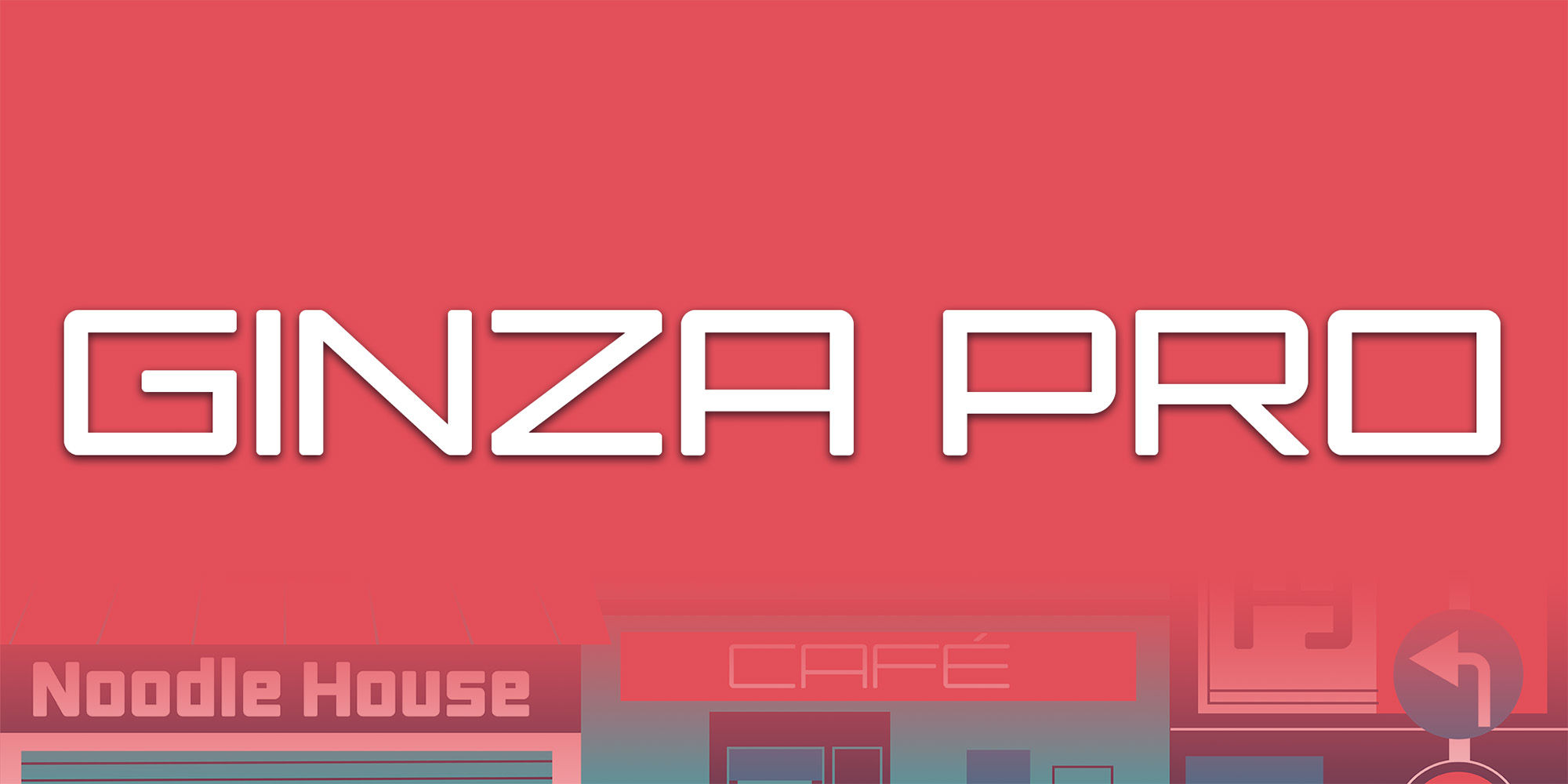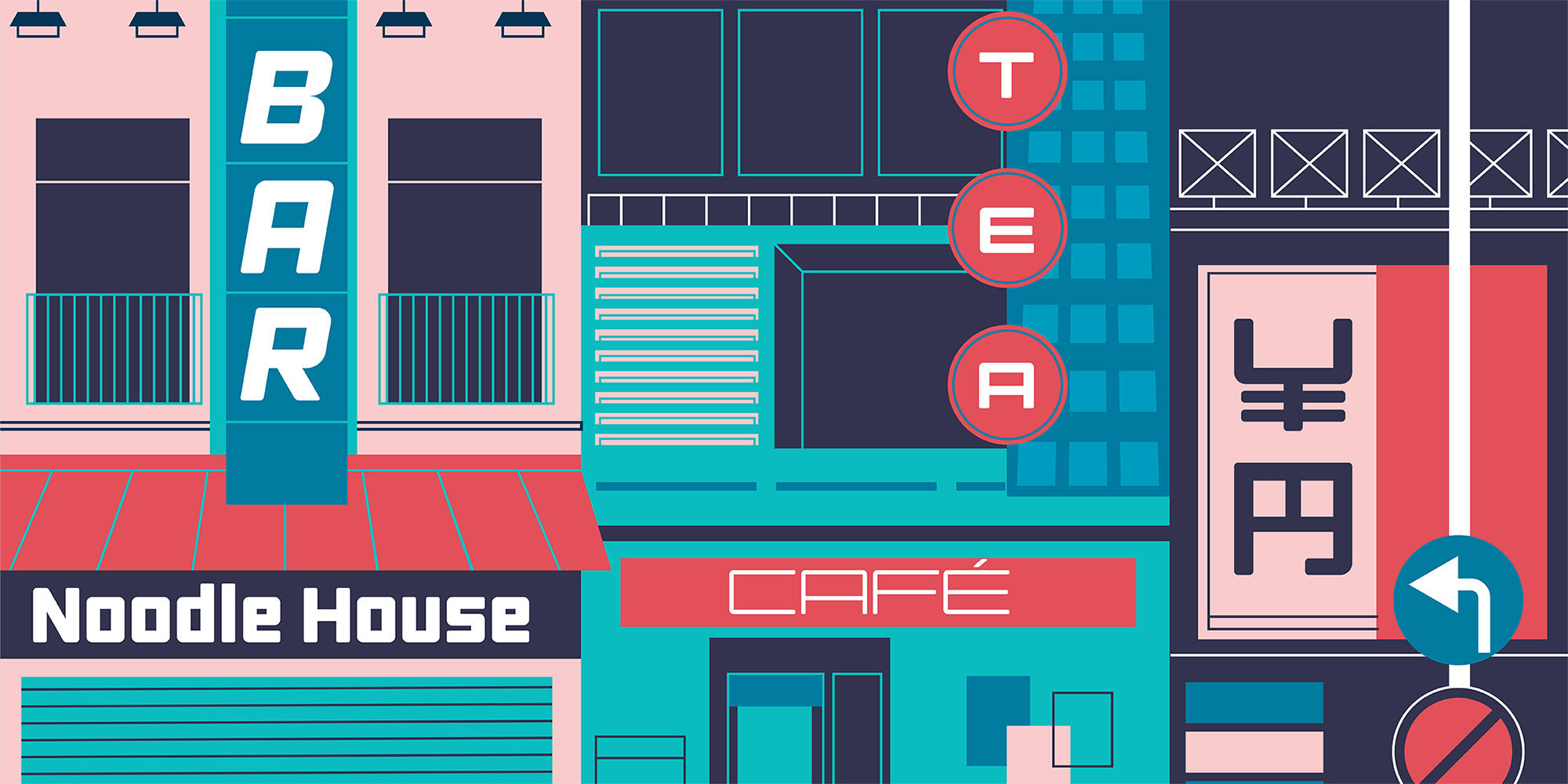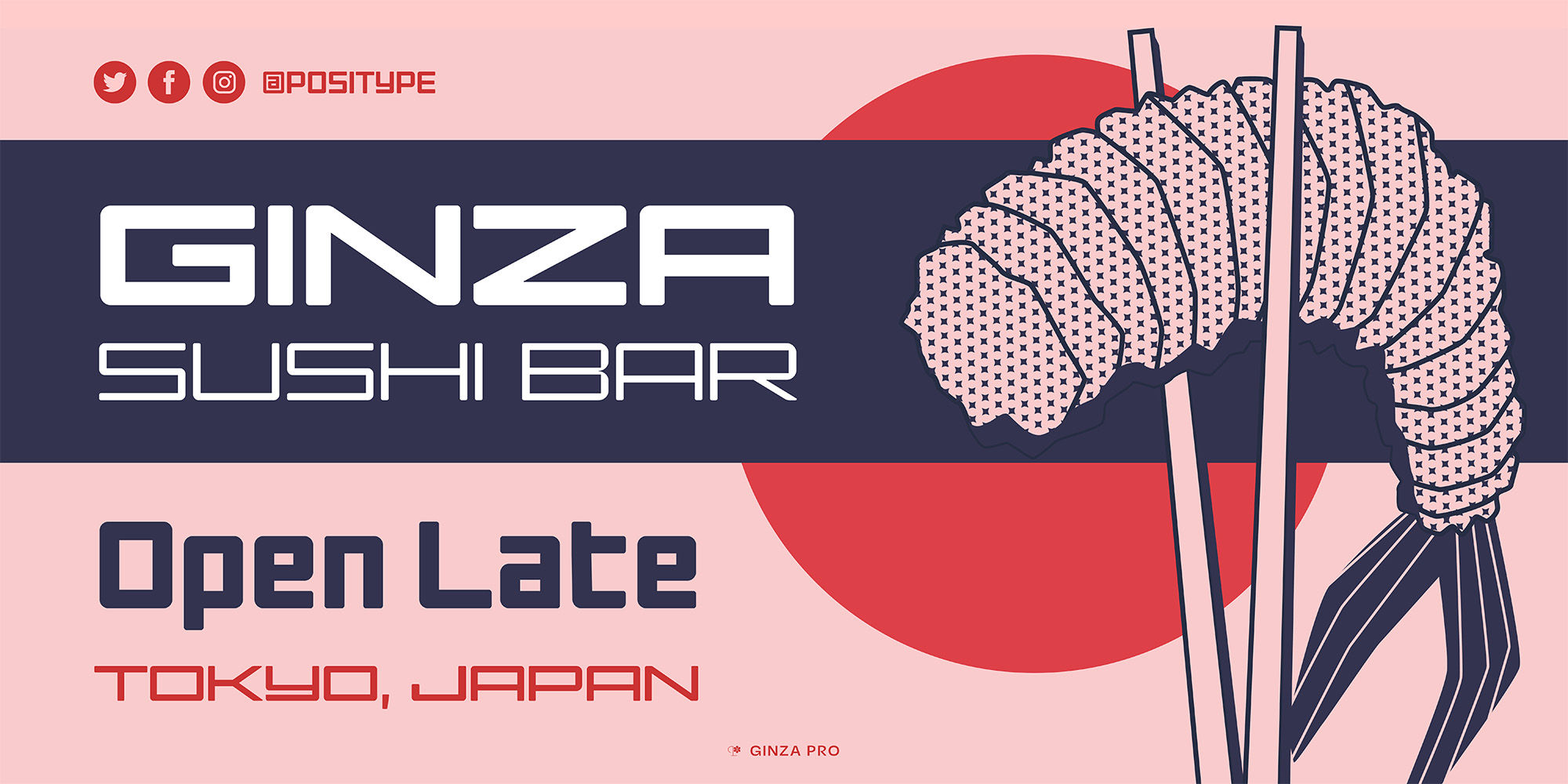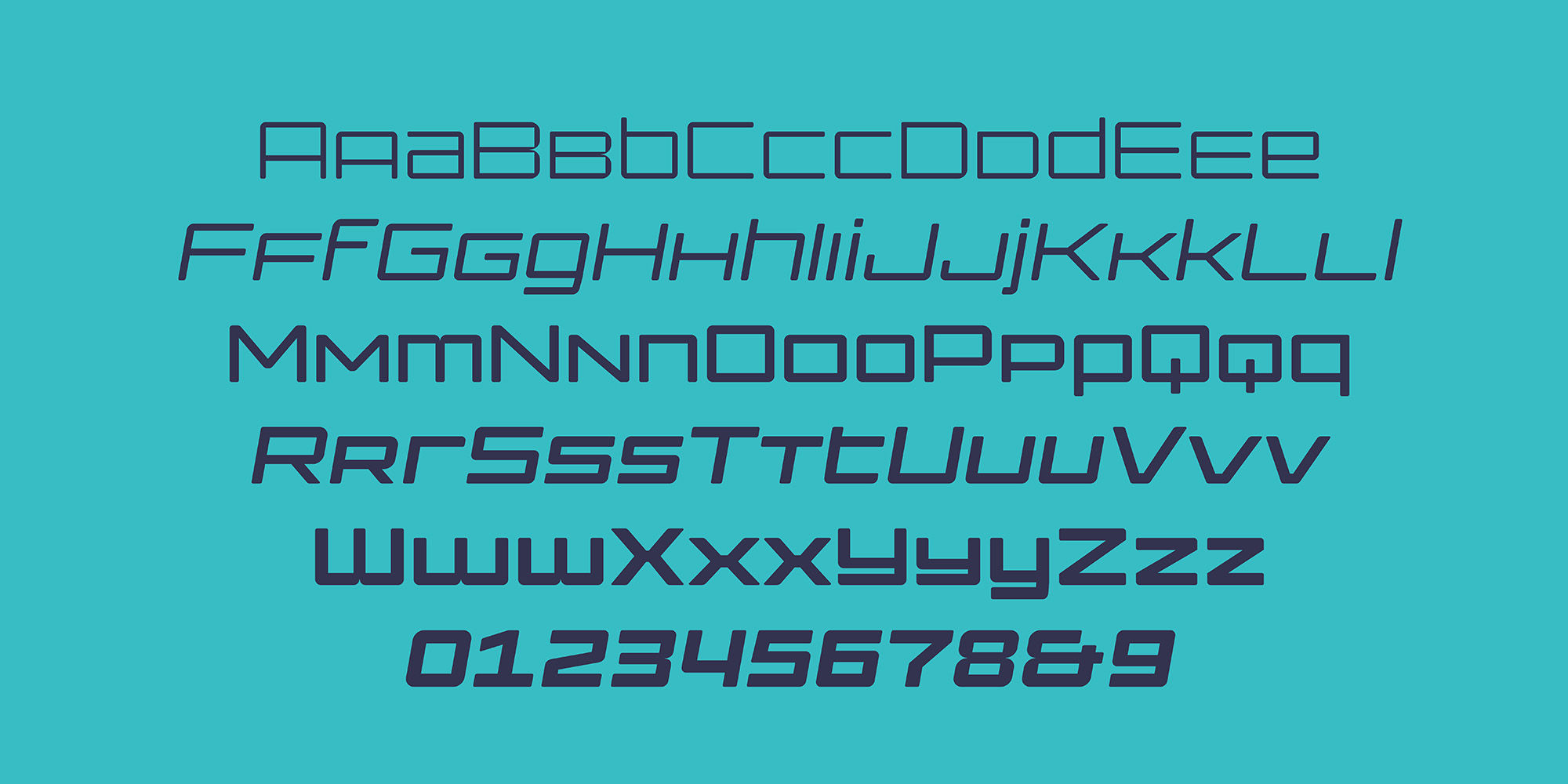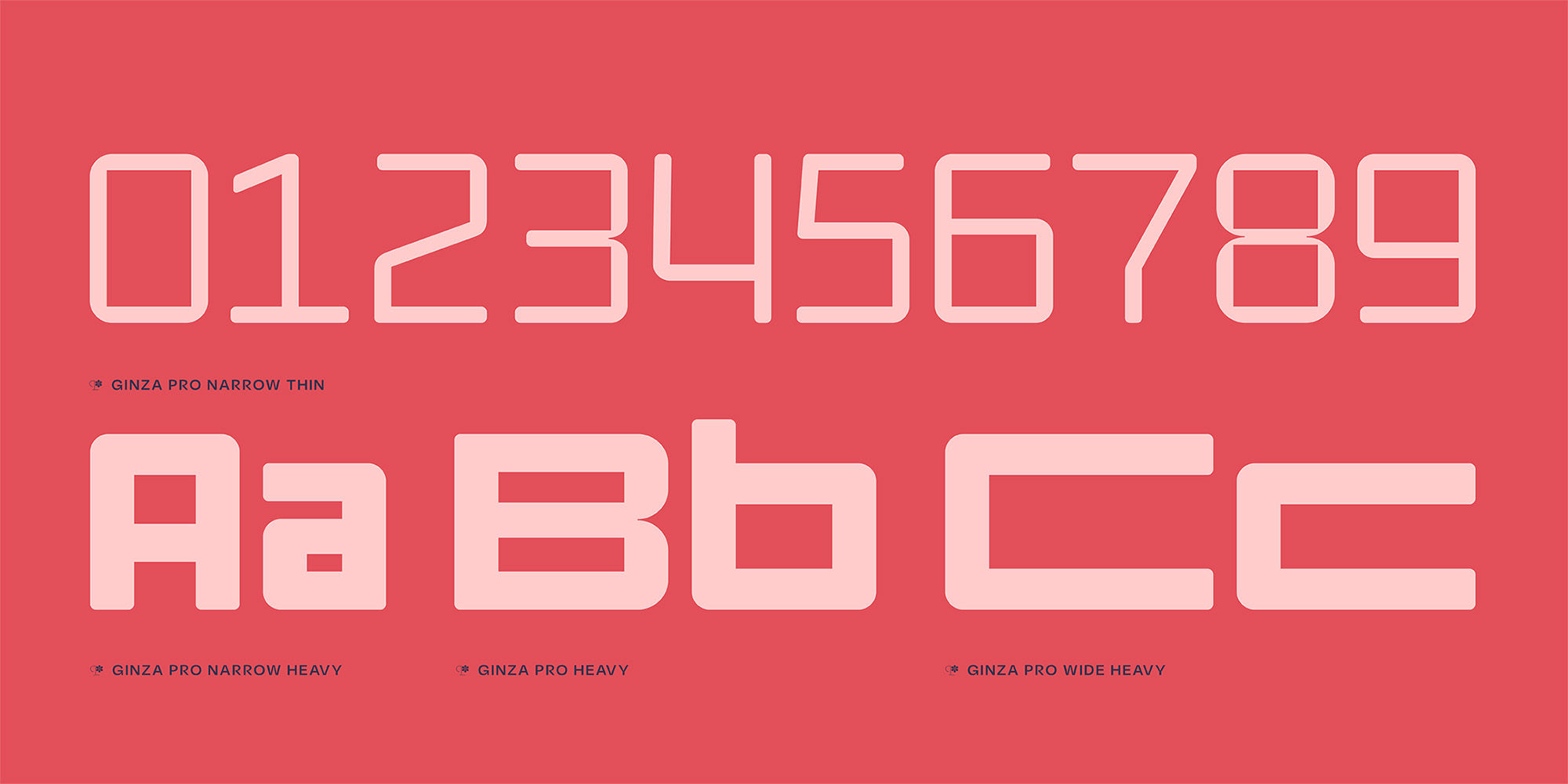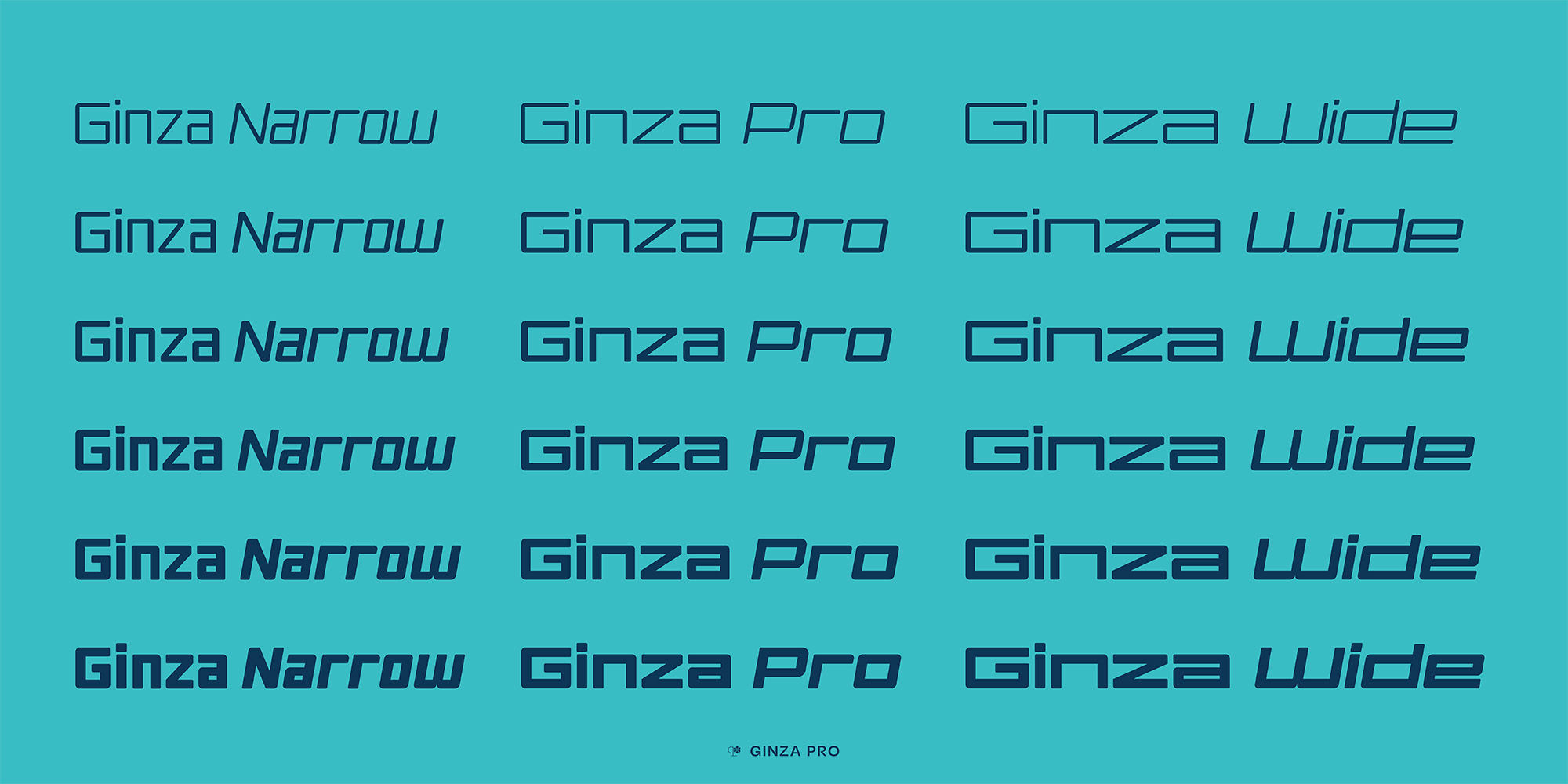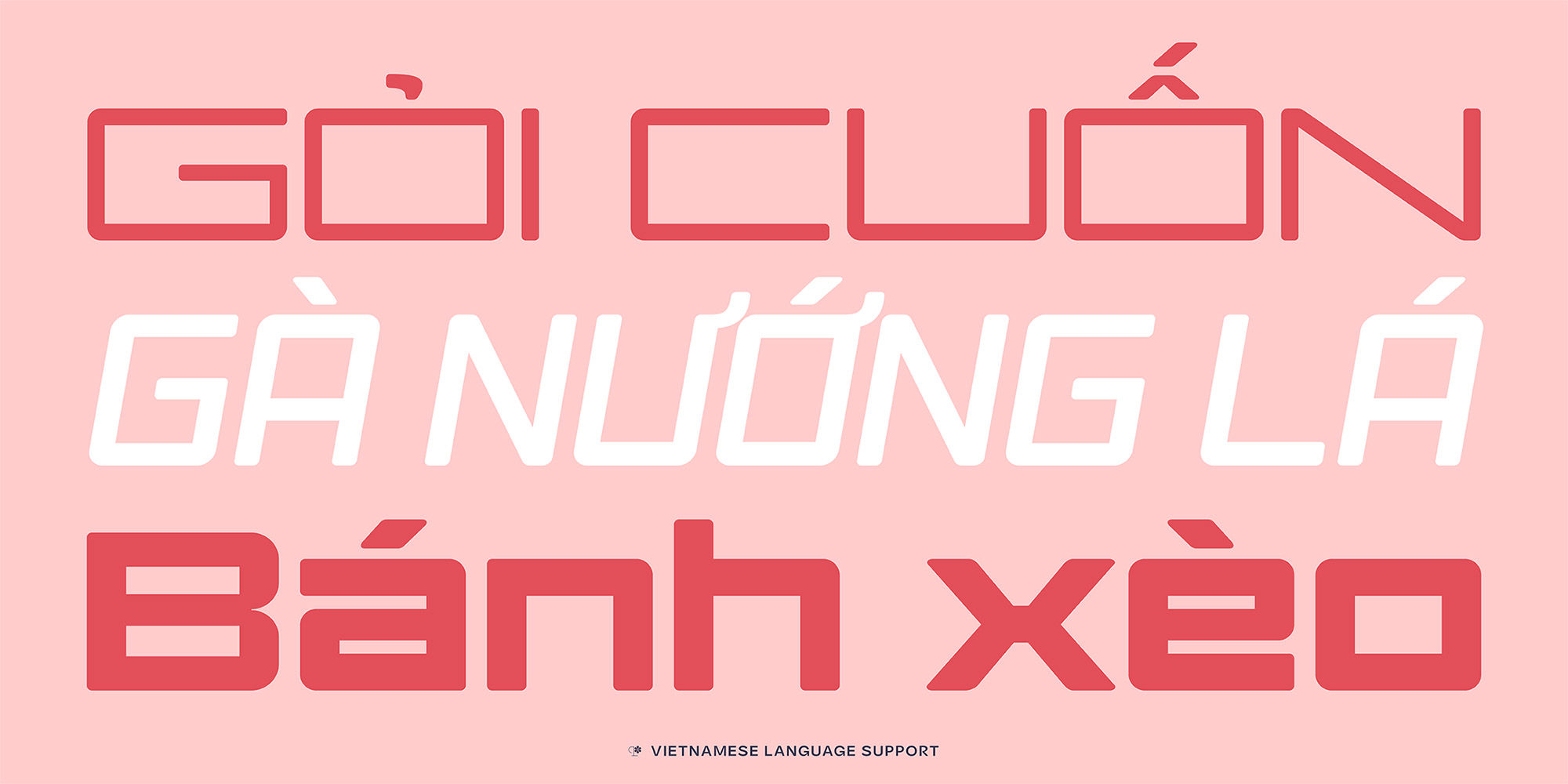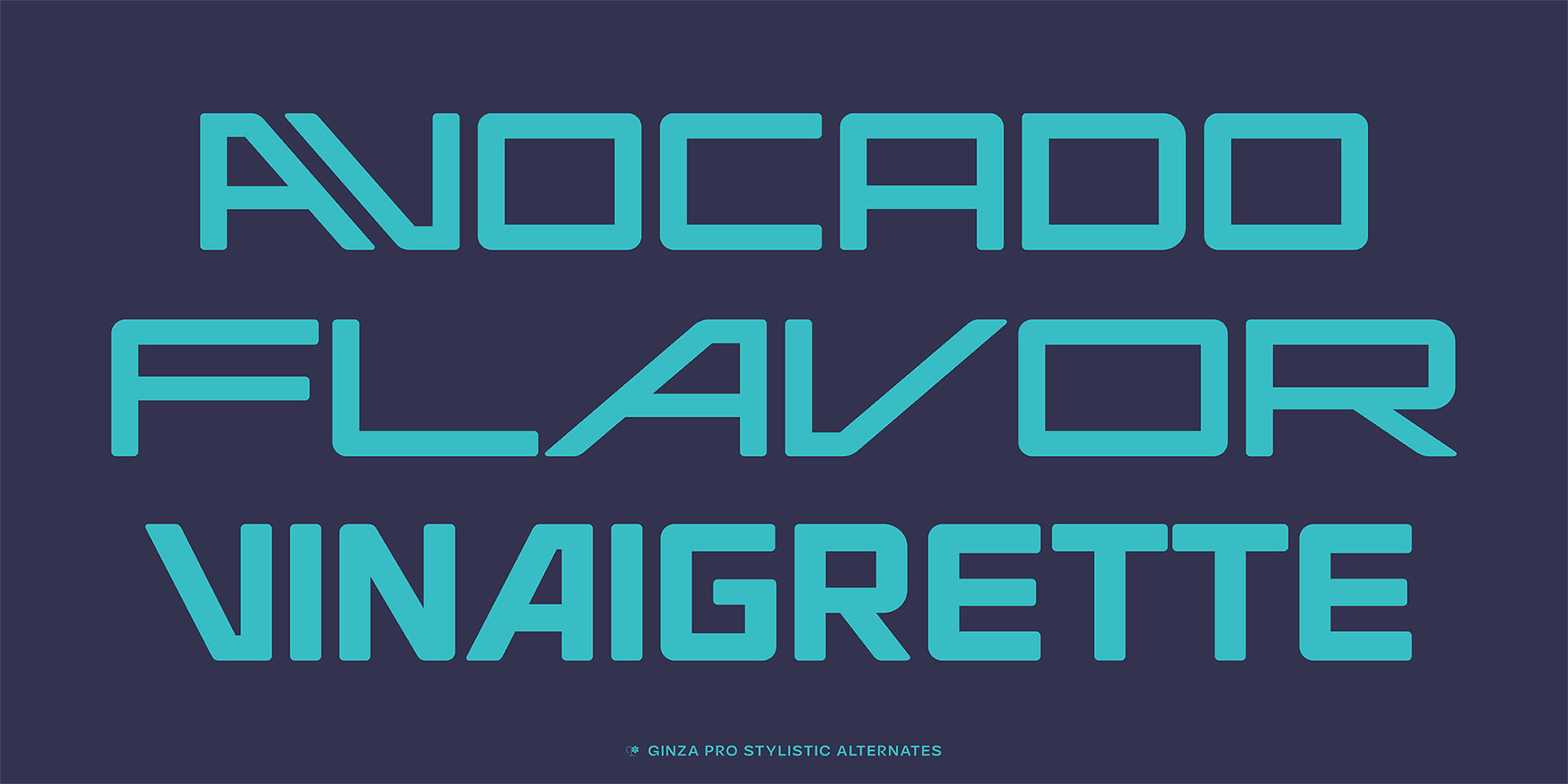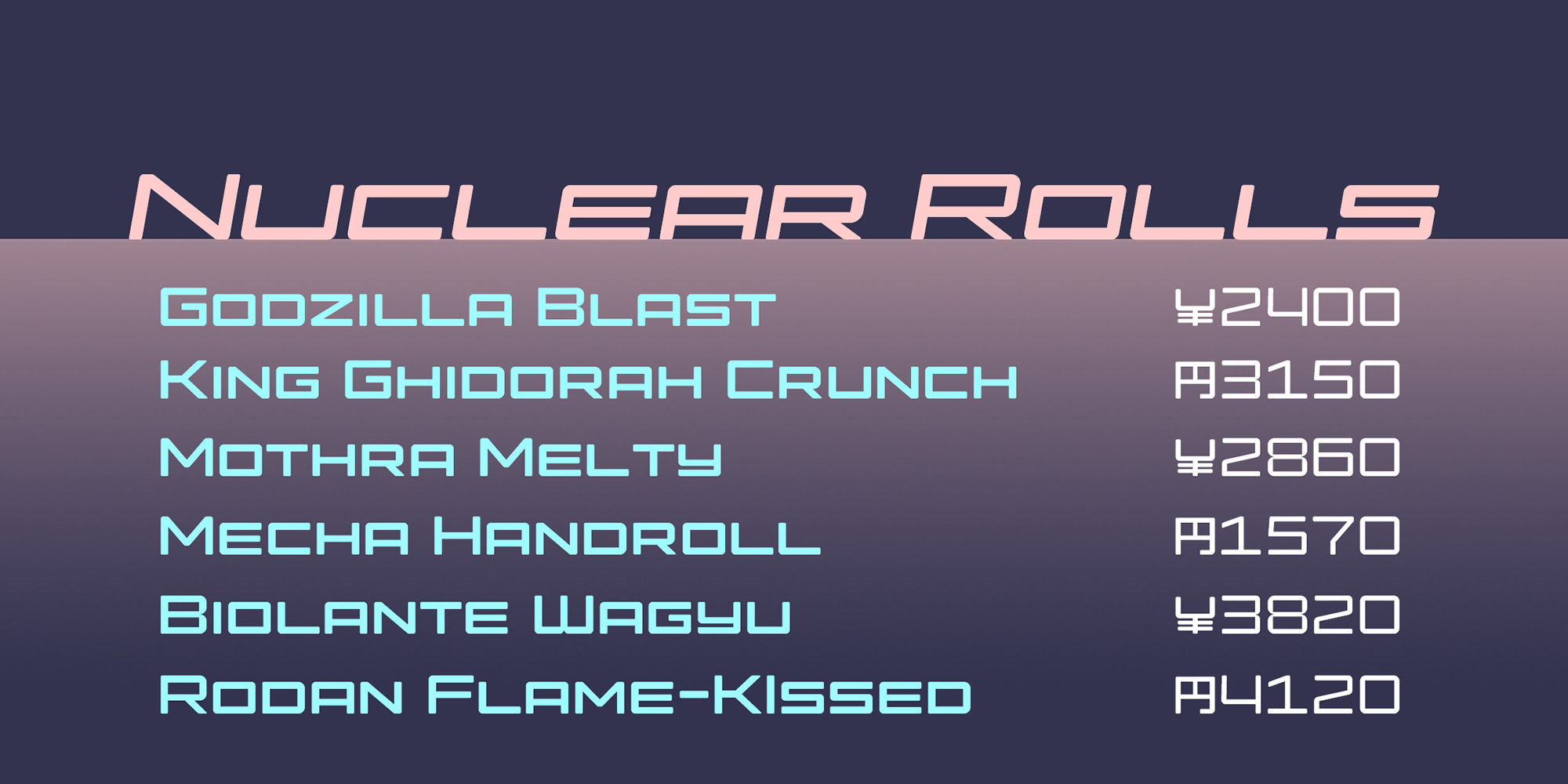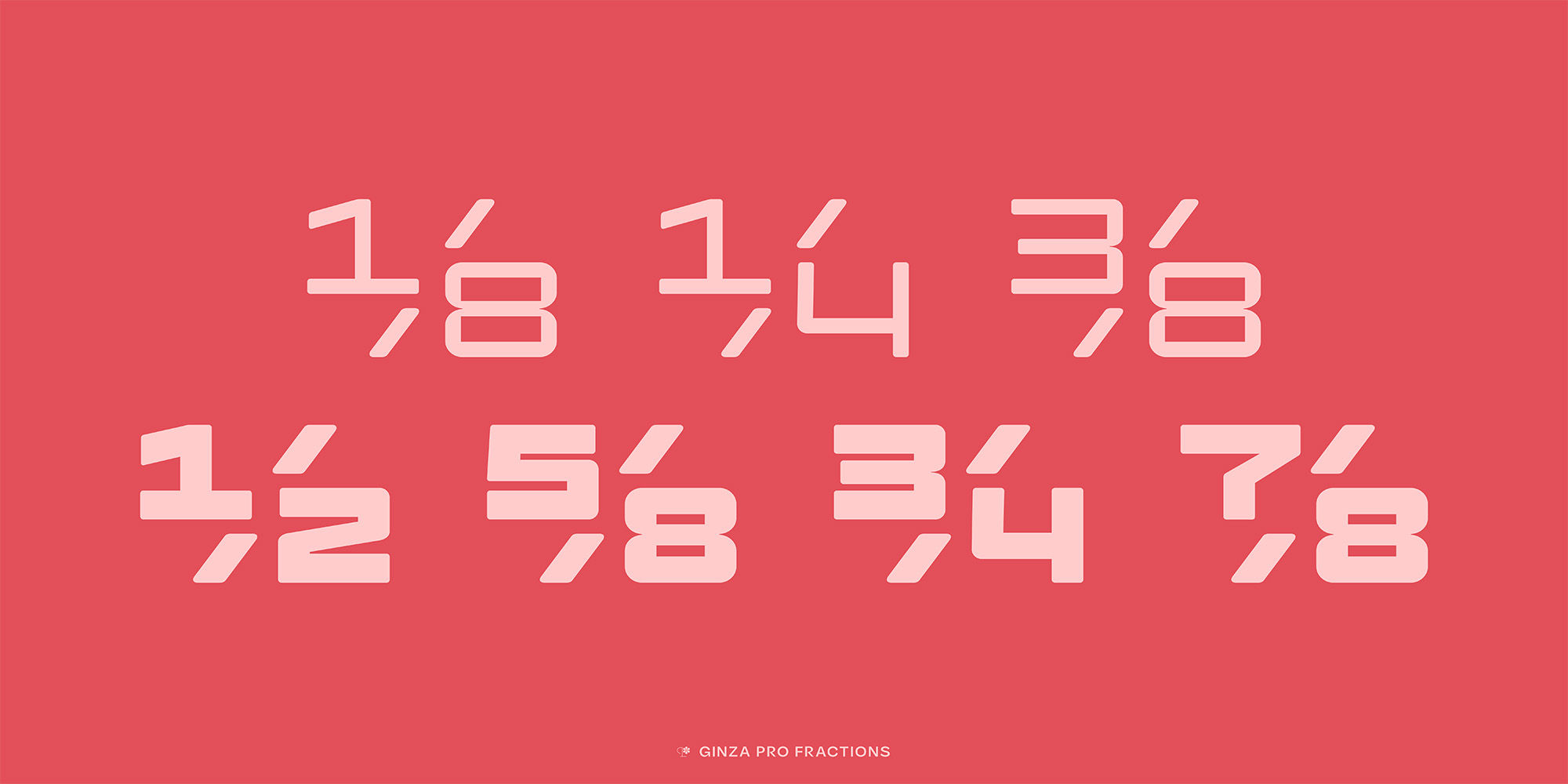
Ginza Pro
Small Caps
Small Capssmcp
245/789
Fractionsfrac
H2SO4
Scientific Inferiorssinf
2nd 4th
Ordinalsordn
0123456789
Tabular Numeralstnum
Igty
Stylistic Set 1ss01
HAVH
Stylistic Set 2ss02
HVAH
Stylistic Set 3ss03
$1498
Stylistic Set 4ss04
This typeface was drawn in 2007, released in 2008, and remastered in 2024. Why? I've always enjoyed seeing this typeface used in video games, packaging, apps, and clothing. To go back and expand it to give users more options and flexibility seemed like the right thing to do. It’s just a fun a typeface… clean, crisp, fast, and of course it lendds itself to the futuristic and modern vibe inspired from its namesake. Going back to clean up glyphs and add more language support, turned into a complete redraw and expansion, adding more weights, more widths, and variability.